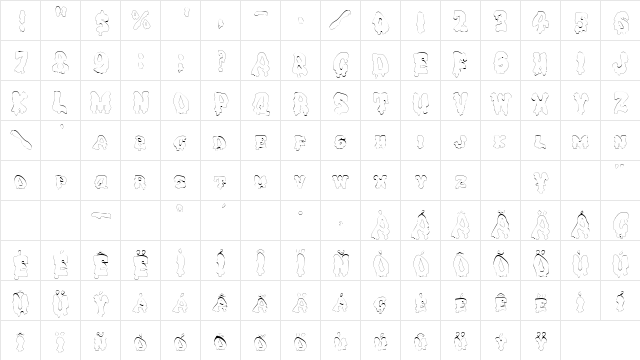
DrippingGooOutline Regular
Design Context for DrippingGooOutline Typeface
DrippingGooOutline is built around its visual character rather than neutral utility — its distinctive forms are designed to make an impression at display sizes.
Font Pairing: Pair with a clean neutral sans-serif for body copy to let DrippingGooOutline's character lead without overwhelming the composition.
Pro Tip: Use DrippingGooOutline exclusively at display sizes — it was designed to be seen, not read at length. Let a neutral companion handle body copy.